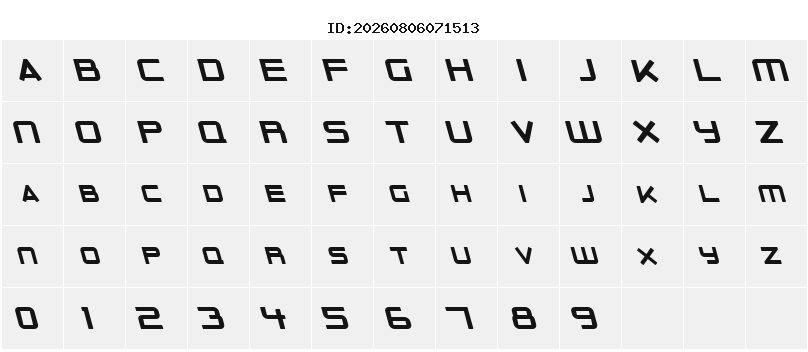
• Font Name: Outer Limits Solid
About Outer Limits Solid.ttf
Outer Limits Solid.ttf is a modern, elegant sans-serif font designed for ultimate readability and visual harmony. Perfect for branding, headlines, web design, and print materials.